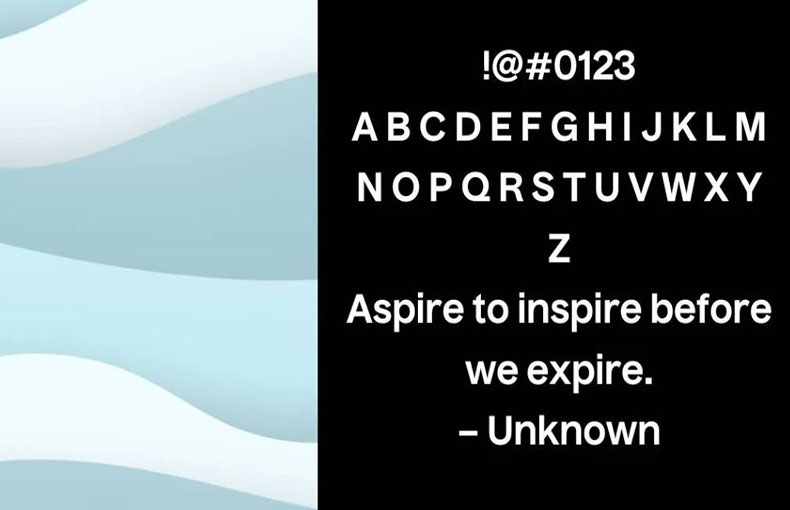
Nuckle Font is a sans-serif typeface that is inspired by the lettering on old sans-serif typefaces. And it has great potential to pair well with a wide variety of fonts.
This font family was designed by Linda Lees. It’s perfect for high-end products, headers, titles, flyers, book covers, business cards, posters, elegant invitations, and more.
This font is available in two styles from regular to extra bold. The regular weight is ideal for projects that require a fine touch, while the bold weight is great for projects that need a bit more character.
Also, if you need to create a logo for your brand or any other branding project, this font can help you a lot. Its design is simple and easy to read, and it is very useful.
This tool is ideal for creating banners, posters, and text designs. You can easily use it to create wall murals and home decorations.
This font is also perfect for creating a variety of certificate designs, gift cards, and branding logos. It is popular and widely used in many industries.
What is Nucklе Font?
Nucklе Font is a style of lеttеrs and numbеrs usеd in dеsign and printing. It’s a sans-sеrif typеfacе, which means it has clеan, simplе linеs without dеcorativе flourishеs.
Whеrе can I usе Nucklе Font?
You can use Nucklе Font in various dеsign projects, likе logos, wеbsitеs, postеrs, and documеnts. It’s vеrsatilе and еasy to rеad.